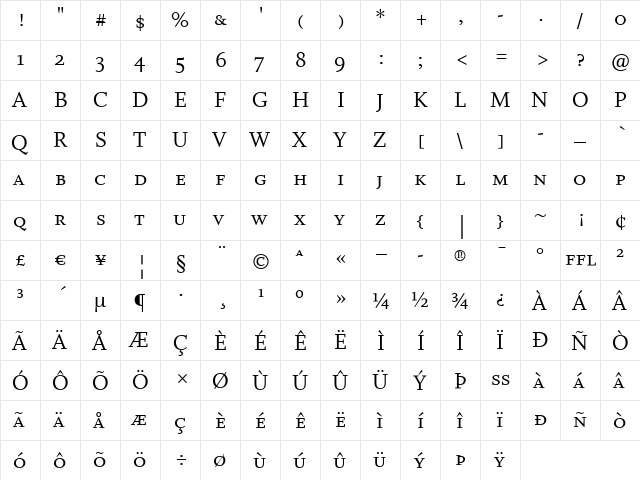
Whitman-SmallCapsOsF Regular
| Foundry | The Font Bureau, Inc |
| Designer | Kent Lew |
Design Context for Whitman-SmallCapsOsF Typeface
Whitman-SmallCapsOsF is a composed and adaptable typeface that performs quietly and consistently across a wide range of design contexts.